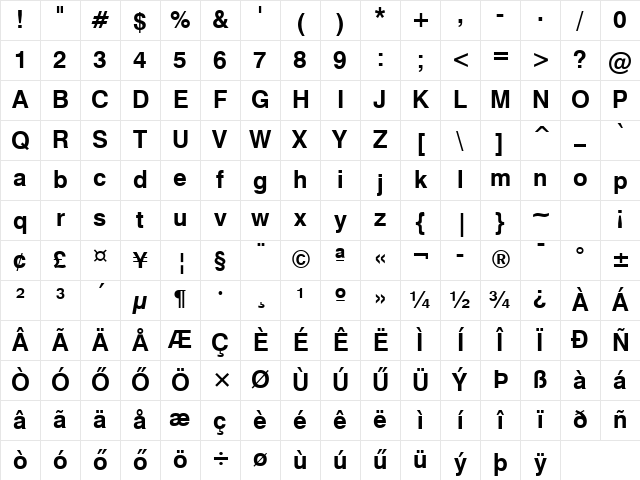
H_SWIBB Regular Free Font
H_SWIBB Regular
Design Context for H_SWIBB
H_SWIBB is a composed and adaptable typeface that performs quietly and consistently across a wide range of design contexts.
Pro Tip: Use H_SWIBB in both headline and body roles to test its range before committing to a single application.